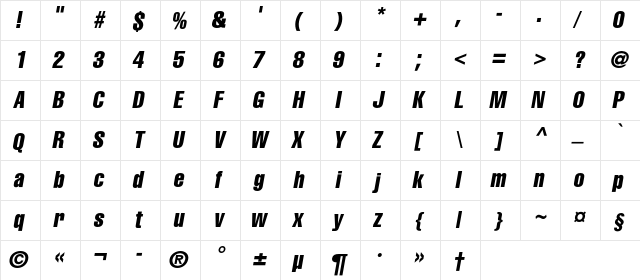
AGLettericaCompressedC Italic
Design Context for AGLettericaCompressedC Typeface
AGLettericaCompressedC takes a measured approach to typography — its balanced proportions and neutral character make it a reliable workhorse for both digital and print work. The dynamic lean of this cut emphasises speed and emphasis in any layout.
Pro Tip: Use AGLettericaCompressedC for emphasis, pull quotes, and subheadings where its slanted energy can add rhythm to the layout.